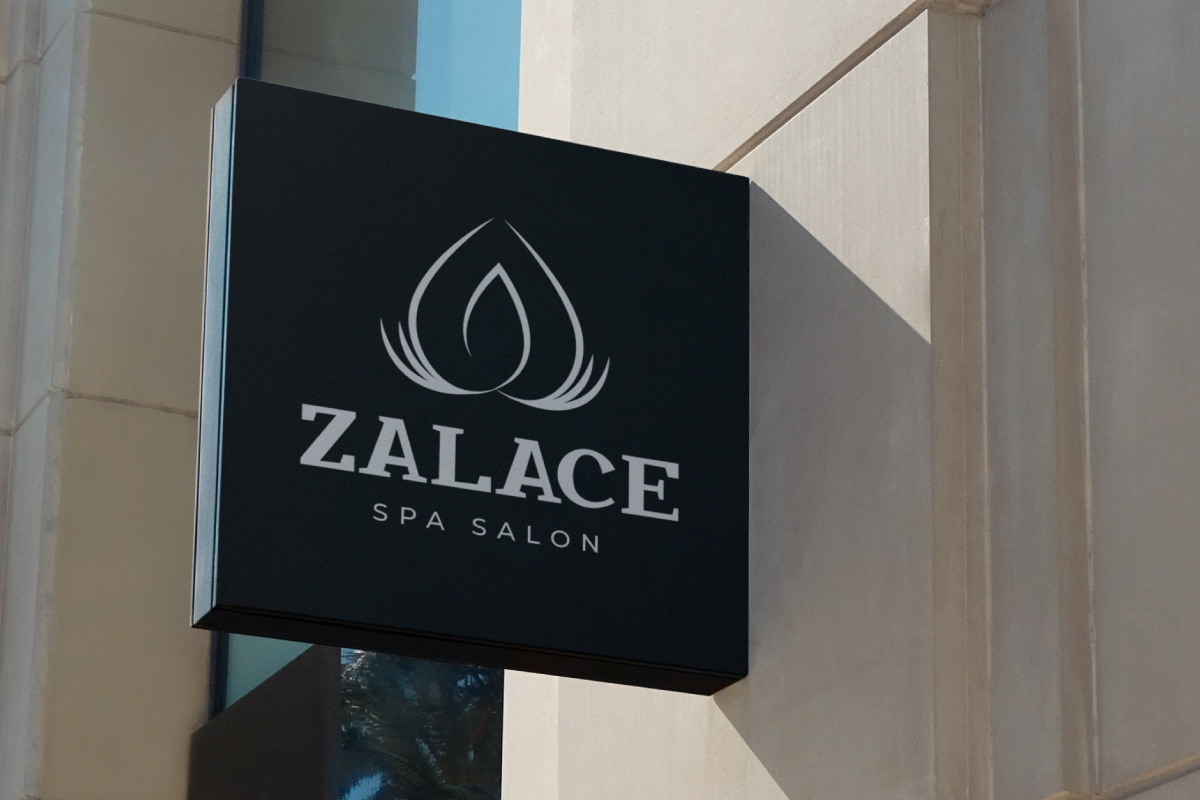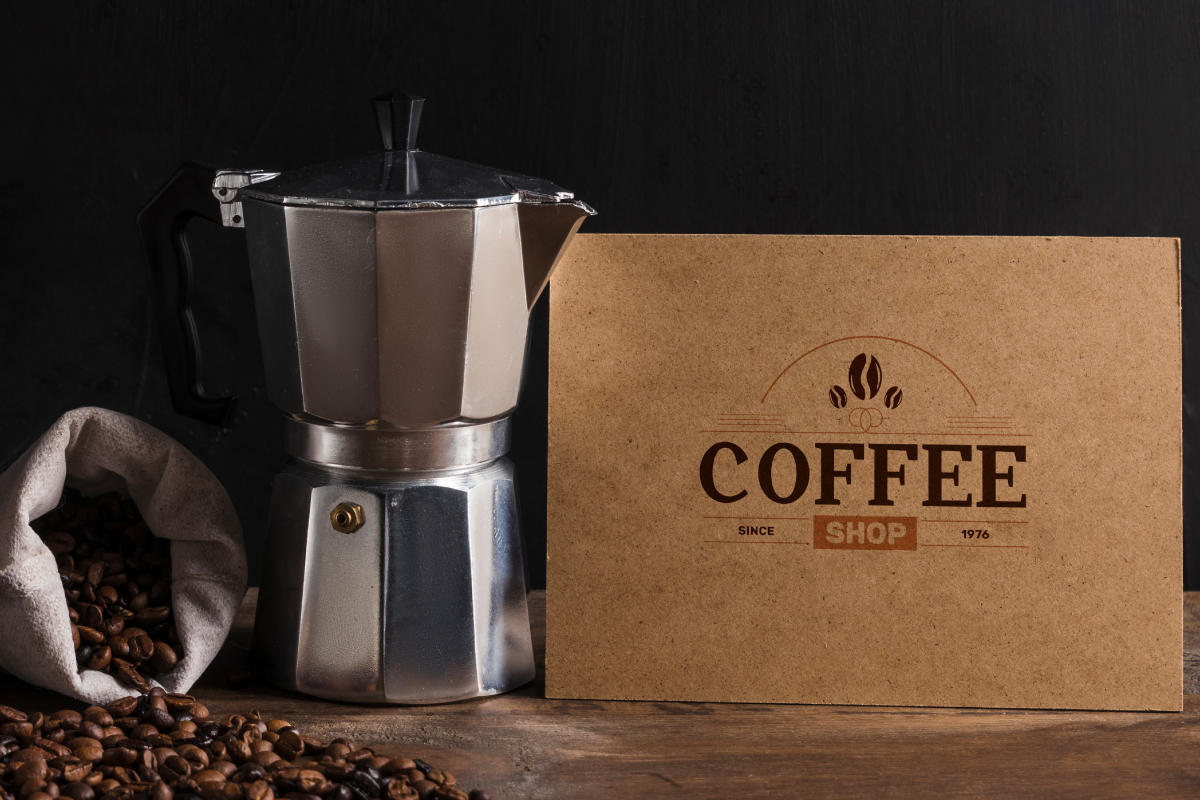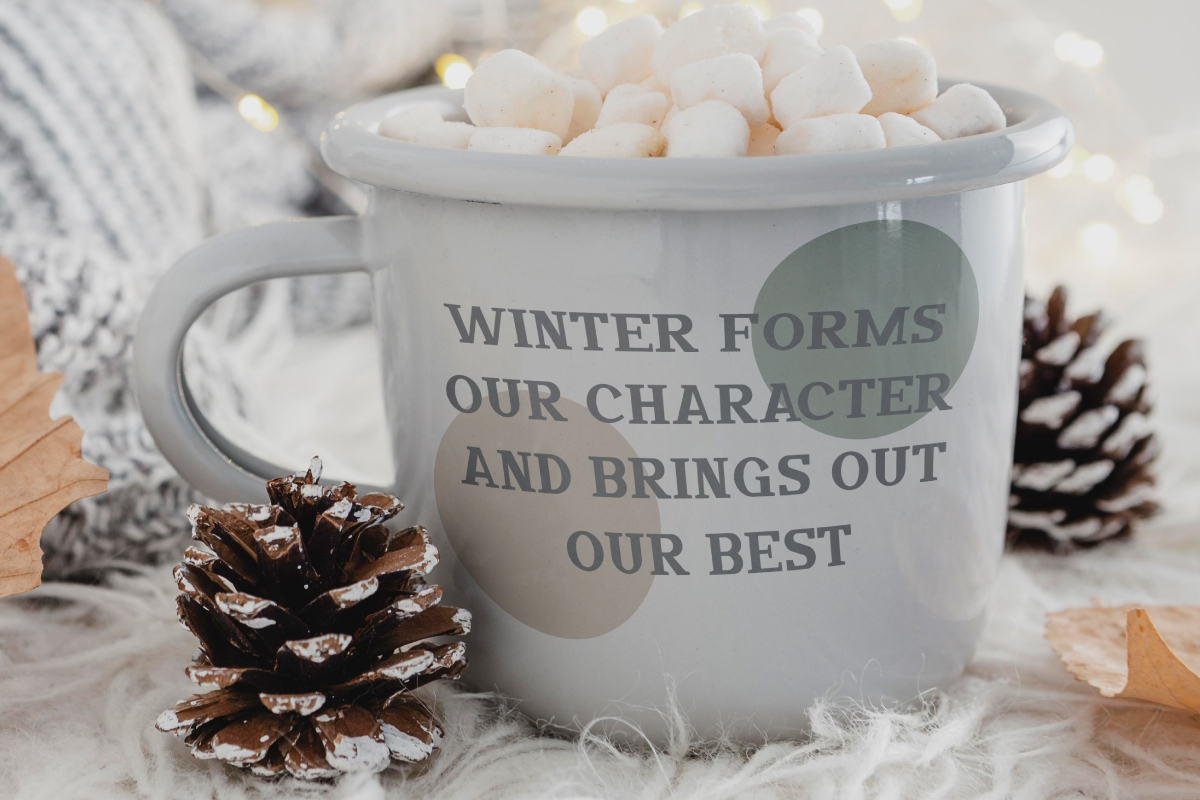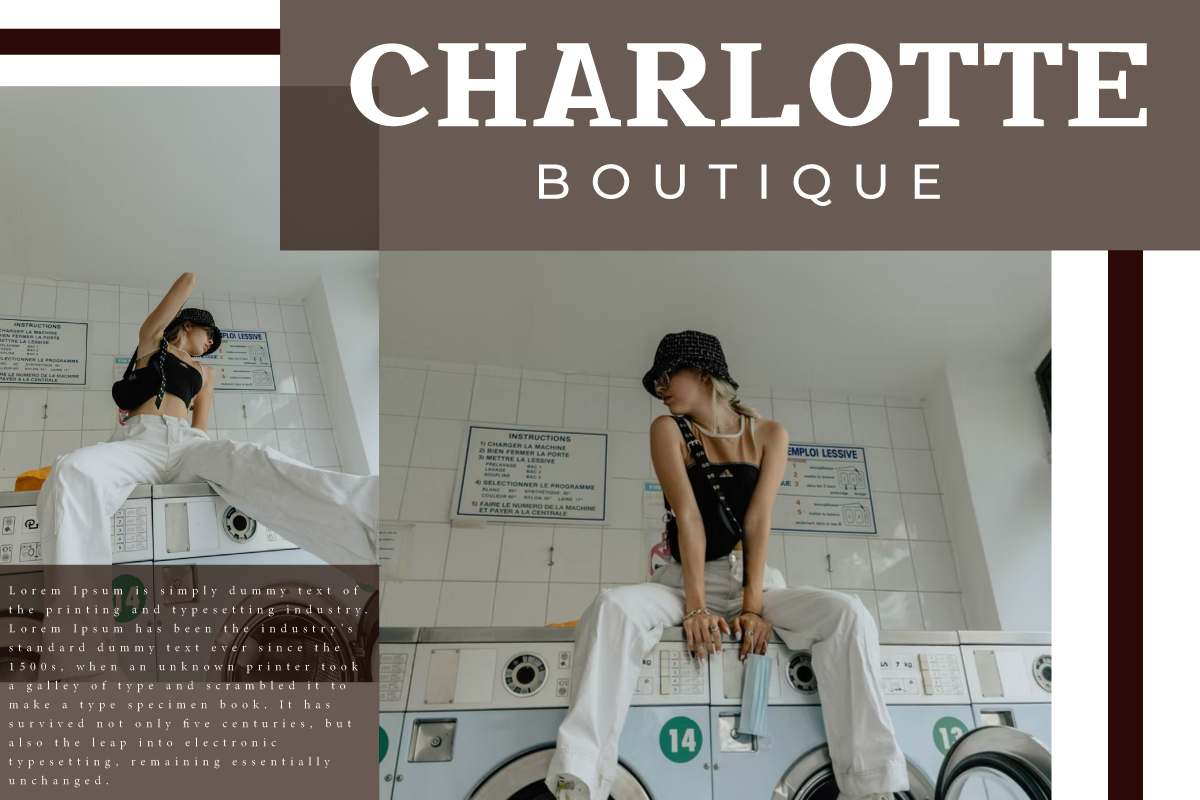
Dakota Spring
Dakota Spring Serif Font is an exclusive serif font with various different styles: Regular, Italic, Condensed, and Condensed Italic that which will make your designs attractive! It will be perfect for many industries, such as bakery, boutique, café, fashion brand, handicrafts, homeware, interior design, publishing, real estate, restaurant, spa and salon, etc.